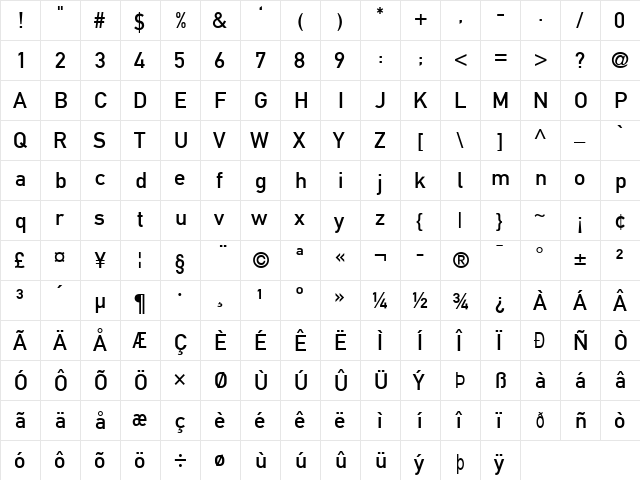
Roadgeek 2005 Mittelschrift Regular
| Foundry | Michael D. Adams |
| Designer | Michael D. Adams |
Design Context for Roadgeek 2005 Mittelschrift Typeface
Roadgeek 2005 Mittelschrift takes a measured approach to typography — its balanced proportions and neutral character make it a reliable workhorse for both digital and print work.